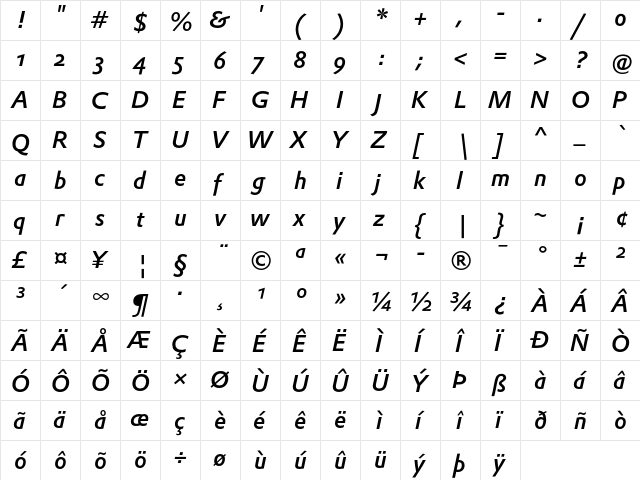
DTLProkyonSTMedium Italic
Design Context for DTLProkyonSTMedium Typeface
DTLProkyonSTMedium takes a measured approach to typography — its balanced proportions and neutral character make it a reliable workhorse for both digital and print work. The slanted form adds forward momentum and visual energy.
Pro Tip: Use DTLProkyonSTMedium for emphasis, pull quotes, and subheadings where its slanted energy can add rhythm to the layout.